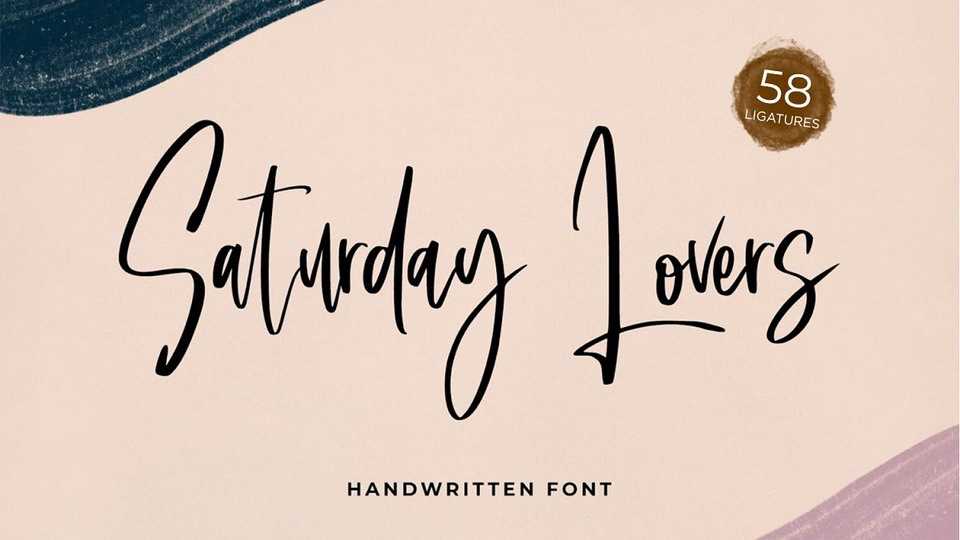
Download Saturday Lovers font, a stylish natural handwritten script that brings a classy and chic style. Saturday Lovers is best used for branding, logotype, quotes and etc.
Designer: Din Studio